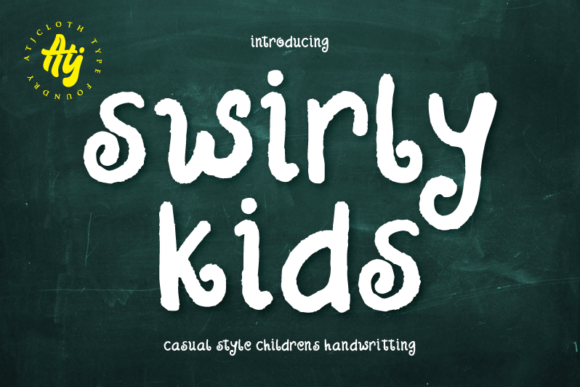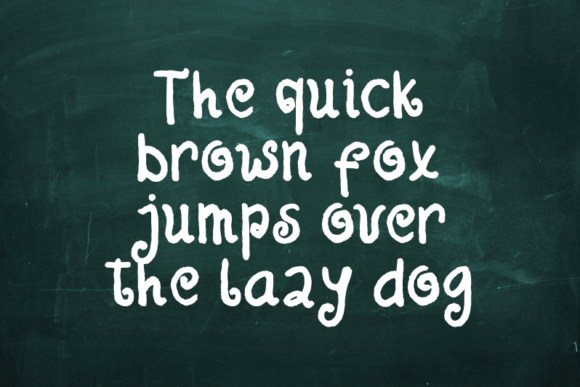
HomeScript FontsSwirly Kids Font Script Fonts Swirly Kids Font FacebookXPinterestWhatsApp Swirly Kids Font Poster 2 About Swirly Kids Font Swirly Kids is a textured brush font with a contemporary charm. Get inspired by its unique feel! DOWNLOAD ON CREATIVE FABRICAThis font is sold and delivered by Creative Fabrica. Font Canyon may earn a commission if you buy through this link. People also explored Pleased Wooden Font Anastacia Font The Gift Font Sarleetta Font Slava Ukraini Font Reula Maulina Font Square Spaceship Font Scream Font 355 0 TagsSwirly Kids Font Previous articleRandom Brush FontNext articleAll Caps Font LEAVE A REPLY Cancel reply Comment: Please enter your comment! Name:* Please enter your name here Email:* You have entered an incorrect email address! Please enter your email address here Website: Save my name, email, and website in this browser for the next time I comment. Personal Use Free Caramel Latte Personal Use Free Read more about this font BD Console Personal Use Free Read more about this font Nulshock Bold Personal Use Free Read more about this font Bright Dreams Personal Use Free Read more about this font BLOG To increase your work productivity, choose the most readable fonts. In today's fast-paced work environment, where digital communication and information consumption are integral to our daily routines, the choice of fonts can significantly impact... Best Fonts for T-Shirt Design – Top 2025 Picks Modern Sans-Serif Fonts That Brands Love in 2025 5 Fonts That Will Dominate Design Trends in 2026